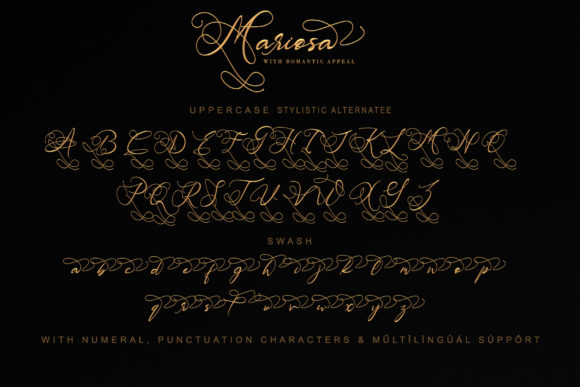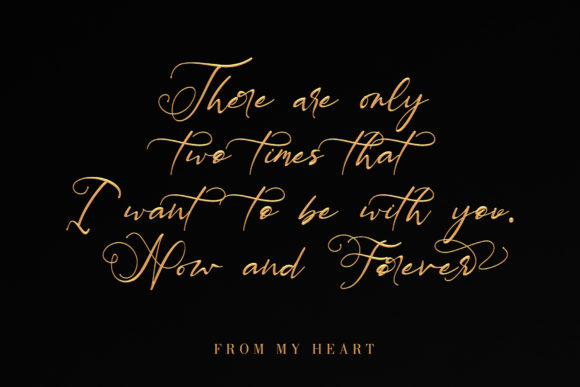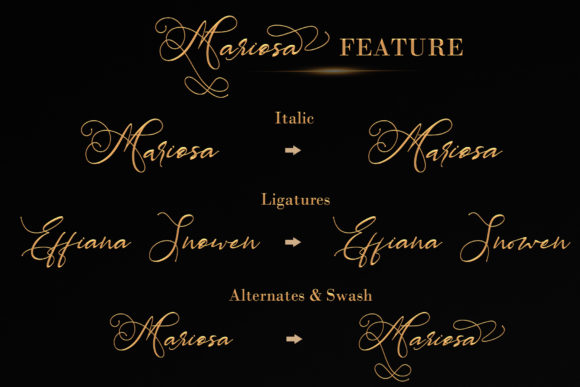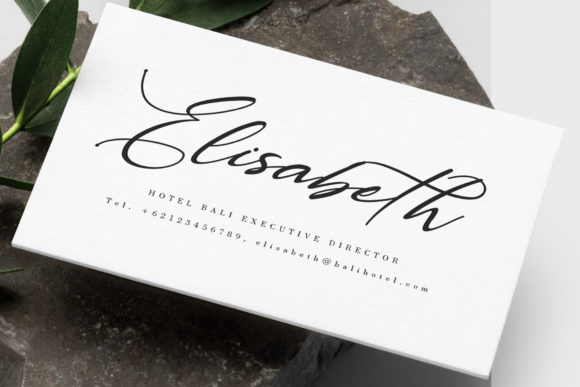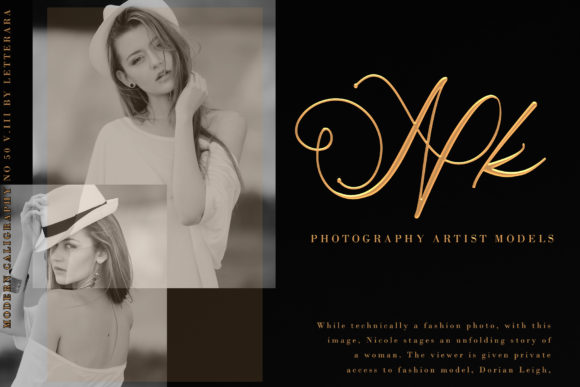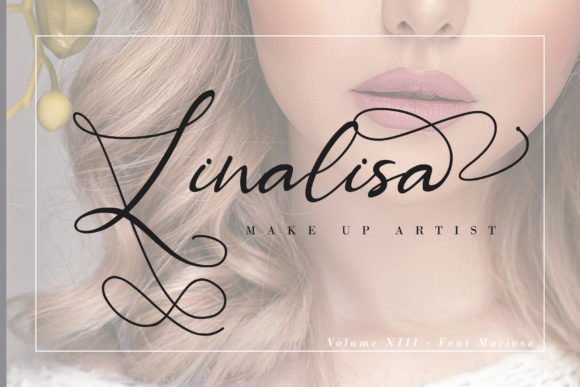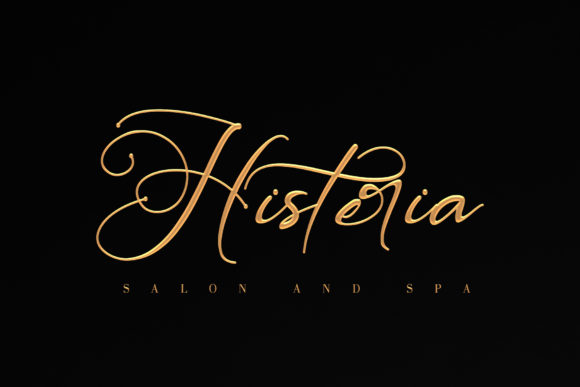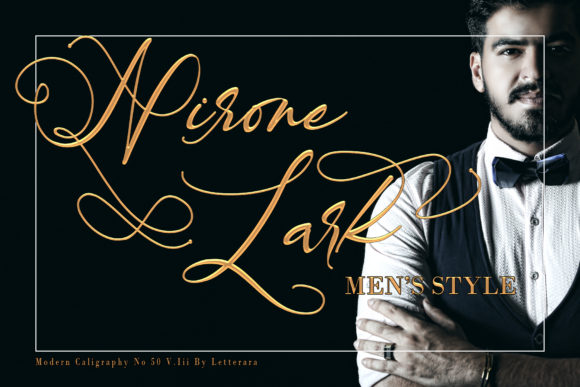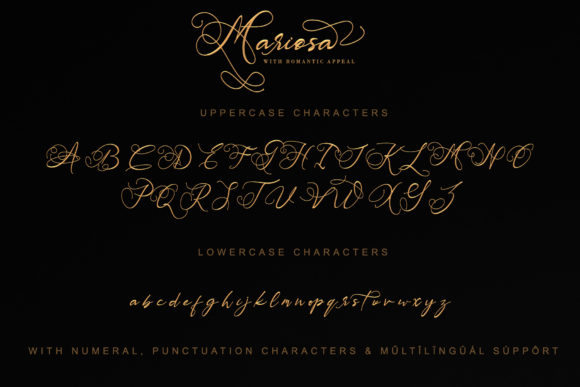
HomeScript FontsMariosa Font Script Fonts Mariosa Font FacebookXPinterestWhatsApp Mariosa Font Poster 2 Mariosa Font Poster 3 Mariosa Font Poster 4 Mariosa Font Poster 5 Mariosa Font Poster 6 Mariosa Font Poster 7 Mariosa Font Poster 8 Mariosa Font Poster 9 Mariosa Font Poster 10 About Mariosa Font Mariosa combines beauty and authenticity into one truly iconic typeface. Get inspired by its romantic feel! DOWNLOAD ON CREATIVE FABRICAThis font is sold and delivered by Creative Fabrica. Font Canyon may earn a commission if you buy through this link. People also explored Hackensack Roewet Font Sabian Valent Belgetha Font Mistery Heart Font Overshoot Font Mandala Handmade Font Cutie Biscuit Font Prenton Display Thin Font 343 0 TagsMariosa Font Previous articlePaisley Script FontNext articleIntervensi Font LEAVE A REPLY Cancel reply Comment: Please enter your comment! Name:* Please enter your name here Email:* You have entered an incorrect email address! Please enter your email address here Website: Save my name, email, and website in this browser for the next time I comment. Personal Use Free Kensin Personal Use Free Read more about this font 08 Underground Personal Use Free Read more about this font Angola Beach Personal Use Free Read more about this font Unsteady Overseer Personal Use Free Read more about this font BLOG Top 10 Handwritten Fonts That Elevate Your Designs Top 10 Handwritten Fonts That Will Elevate Your Designs Handwritten fonts bring a warm, personal touch to every creative project. Whether you're designing logos, invitations,... Best Fonts for YouTube Videos: Make Your Thumbnails Stand Out 5 Fonts That Will Dominate Design Trends in 2026 Fonts That Capture the Spirit of New York City